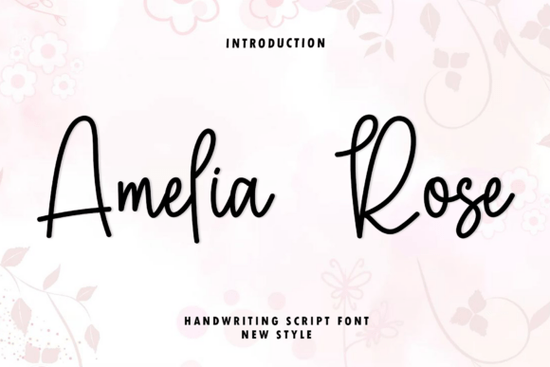
If you’ve been searching for a script font that feels personal but still polished, Amelia Rose might be exactly what your next project needs. It’s not overly ornate or stiff instead, it moves like real handwriting, with tall ascenders and soft, looping connections that give it rhythm without feeling chaotic. Designers working on wedding invitations, boutique branding, or editorial layouts often reach for fonts like this because they add warmth while keeping things refined.
What makes Amelia Rose different from other handwritten fonts?
Many script fonts try too hard to look “fancy,” ending up stiff or unnatural. Amelia Rose avoids that by leaning into its motion the way letters connect feels intentional, not forced. The spacing between characters is generous enough to stay legible even at smaller sizes, which isn’t always true with flowing scripts. If you’ve tried fonts like The Blendhes or Fantastic and found them either too rigid or too wild, Amelia Rose sits comfortably in the middle.
Who should consider using this font?
It’s especially useful if you’re designing for:
- Wedding stationery programs, menus, save-the-dates
- Small business logos cafes, boutiques, florists, salons
- Print-on-demand products mugs, tote bags, journals where a personal touch sells
- Editorial layouts magazine quotes, book covers, blog headers
Even crafters making vinyl decals or hand-lettered signs find it works well because the strokes are clean and consistent no weird gaps or overlaps when scaled down.
How does it pair with other fonts?
Amelia Rose plays nicely with simple sans-serifs or clean serifs. Think minimalist typefaces like Helvetica, Lato, or even something like Bubble if you want contrast without clashing. Avoid pairing it with another script two flowing fonts together can feel messy. Instead, let Amelia Rose carry the emotional tone while a neutral font handles the supporting text.
You can also layer it over subtle textures or muted backgrounds. Because of its light weight and open letterforms, it doesn’t get lost easily just make sure there’s enough contrast so it stays readable.
Any tips for getting the most out of this font?
A few small tweaks go a long way:
- Adjust tracking slightly tighter if you’re using all caps or short phrases it helps the flow feel more connected.
- Use OpenType features if your software supports them some versions include alternate characters or ligatures that add subtle variation.
- Test readability at actual size especially for printed items. What looks beautiful zoomed in might blur together on paper.
And don’t forget: script fonts like this aren’t meant to carry long paragraphs. Use them for headlines, names, quotes, or accents. Let them shine in moments where personality matters most.
Remember, choosing a font isn’t about picking the “best” one it’s about finding the right voice for what you’re making. Amelia Rose speaks softly but clearly, and that’s why it keeps showing up in high-end design work.